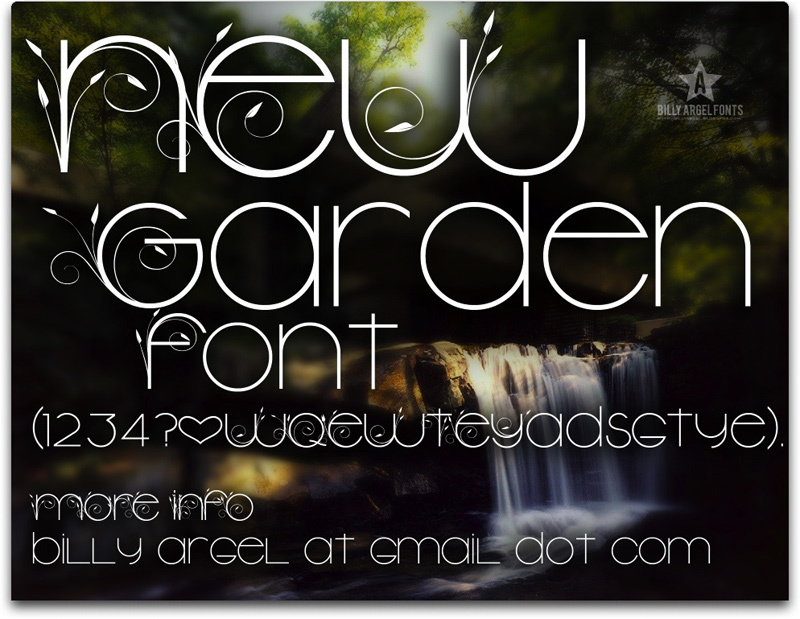
New Garden Light by Billy Argel is a free decorative display font with near-monoline strokes and broad, rounded forms. Fine curls and leaflike flourishes slip through several letters, breaking the clean geometry with delicate botanical detail.
The refined curves suit fashion branding, but the ornamental strokes also feel appropriate for wedding invitations. Beauty packaging can use the lettering as a graceful product signature, and garden event posters can echo its vine-like decoration. Its clearest themes are cultivated nature, romance, and the finer side of Art Nouveau.